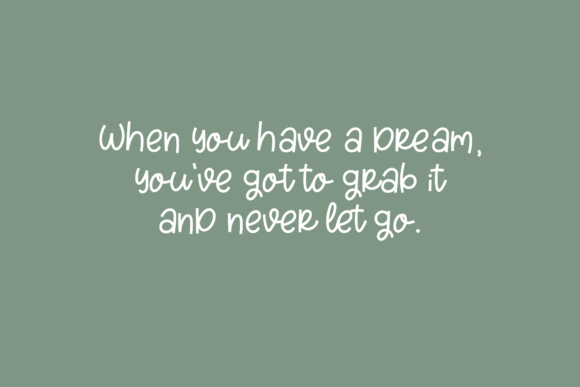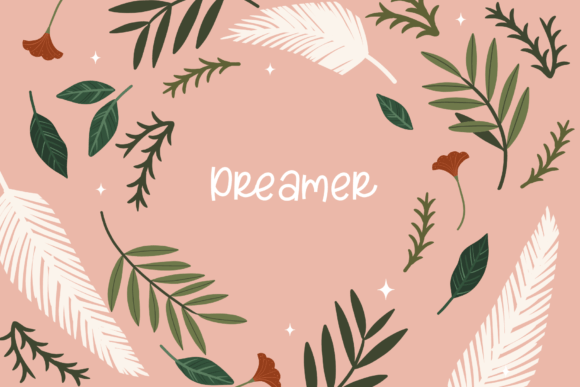
Tinkle Star Font
Add some sweetness to your designs with this adorable script font! It’s perfect for any project that needs a touch of whimsy and charm. From greeting cards and invitations to social media graphics and branding materials, our cute font will bring a playful energy to your work. With its playful curves and delightful details, this font is sure to make your designs stand out. So don’t wait any longer – try this lovely font today and add some cuteness to your design projects!